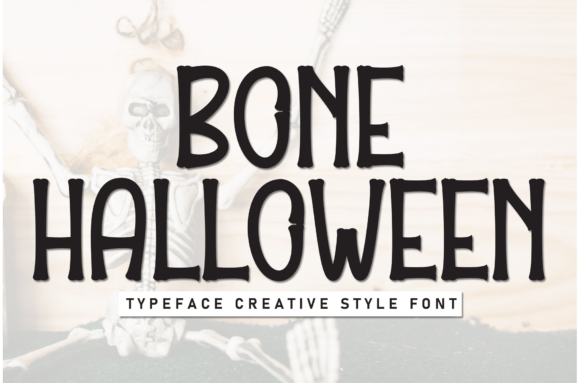
Bone Halloween: A Designer’s Practical Review
When evaluating a new display font for seasonal projects, the line between charmingly spooky and visually exhausting is incredibly thin. As designers, we have all scrolled through endless libraries of novelty typefaces that look fun in the thumbnail but fall apart when applied to actual brand identity work. My initial assessment of Bone Halloween was cautious, expecting another generic horror style. However, after testing it across multiple real-world mockups, it became clear that this typeface offers a specific structural integrity that separates it from standard holiday clip-art fonts. It possesses a tactile, illustrative quality that feels handcrafted rather than digitally generated, making it a viable candidate for professional design assets rather than just amateur crafts.
Visual Personality and First Impressions
The immediate mood Bone Halloween establishes is one of vintage macabre rather than modern slasher. The letterforms carry a weight and texture that suggests woodblock printing or hand-carved signage. For a designer, this is crucial because it provides built-in depth. When placed on a flat background, the font does not look like a sticker; it looks like an artifact. This inherent texture saves time in post-production because you do not need to overlay grunge effects to make it feel authentic. The personality is playful yet grounded, avoiding the jagged, aggressive sharpness that often plagues horror typography. Instead, it leans into a nostalgic aesthetic that pairs surprisingly well with modern typography trends favoring warmth and imperfection.
Performance in Branding and Packaging Design
In the context of packaging design, legibility at various scales is the primary stress test. I applied Bone Halloween to a mockup for a boutique candle label and a craft beer can. At three inches tall, the details sing. The bone-like structures of the characters create natural negative space that allows dark backgrounds to breathe through the letters. However, as a premium font choice for branding, it demands restraint. It works exceptionally well as a primary logotype for seasonal pop-up shops, haunted house attractions, or limited-edition product lines. It creates instant recognition and sets a definitive tone without needing additional illustration support.
For logo design, the font requires minor optical adjustments. Because the characters are illustrative, the default kerning can sometimes feel uneven when locked up tightly. I found that manually adjusting the spacing between specific letter pairs was necessary to maintain visual balance. This is standard procedure for any expressive creative font, but it is worth noting for designers on a tight deadline. Once adjusted, the wordmark holds its own against established competitors in the seasonal retail space.
Digital Applications and Social Media Graphics
Digital environments present different challenges, particularly regarding screen resolution and scrolling speed. When testing Bone Halloween for social media graphics and Instagram stories, the high contrast proved beneficial. The thick strokes remain crisp even on mobile devices, preventing the "fuzzy" edge effect common with thinner decorative fonts. For web design, specifically hero headers on landing pages, it performs best when used sparingly. A single headline in Bone Halloween anchored by a clean sans serif font body copy creates a sophisticated hierarchy. It signals to the user immediately that this is a themed experience while maintaining the readability required for conversion.
Content creators and bloggers will find this typeface valuable for thumbnail text and Pinterest pins. The distinct silhouette of the letters ensures they are readable at small sizes in crowded feeds. Unlike intricate script font styles that become illegible when scaled down for mobile previews, Bone Halloween retains its character shape integrity. This makes it a reliable tool for driving click-through rates on seasonal content where visual impact must happen in a fraction of a second.
Crafting, Printables, and Physical Products
For the maker community and digital sellers, technical versatility is just as important as aesthetics. I tested Bone Halloween specifically for Cricut and laser cutting workflows. The internal counters (the holes in letters like 'o', 'a', and 'b') are sufficiently open to prevent tearing during vinyl weeding. This is a frequent failure point in novelty fonts, but Bone Halloween appears designed with physical fabrication in mind. For printable design products like party invitations or greeting cards, the font prints cleanly on both matte and glossy cardstock without ink bleed obscuring the finer bone details.
Merchandise designers should note that this font translates beautifully to embroidery and screen printing. The solid fills provide excellent coverage, and the lack of hairline serifs reduces the risk of thread breaks or screen clogging. Whether producing t-shirts for a fall festival or custom tote bags, the typeface maintains its structural boldness across different substrates. This durability makes it a high-value addition to a commercial font library for businesses that sell physical goods.
Strategic Font Pairing and Hierarchy
A display typeface is only as good as the company it keeps. Bone Halloween has a strong voice, so it needs supporting actors that do not compete for attention. During my review, I tested several font pairing strategies to determine what maintains professional polish:
- With Sans Serif: Pairing with a geometric sans like Montserrat or Futura creates a contemporary, editorial look. The cleanliness of the sans offsets the organic roughness of the display font.
- With Serif: Combining Bone Halloween with a traditional serif font like Garamond evokes a classic storybook or Victorian apothecary vibe. This is ideal for editorial design and luxury packaging.
- With Handwritten: Use caution here. Pairing with a handwritten font can easily look messy. If necessary, choose a very neat, monoline script for secondary accents only, never for primary information.
Bone Halloween succeeds because it treats seasonal design with typographic respect. It avoids the trap of being a one-use gimmick by offering enough structural quality to serve in professional marketing visuals and premium merchandise. It is not a universal solution, nor should it be. It is a specialized tool for creating atmosphere, nostalgia, and thematic cohesion. For designers willing to invest the time in proper spacing and thoughtful pairing, it delivers a distinctive visual signature that elevates seasonal work above the generic noise. It earns its place in a curated font library not just as a Halloween asset, but as a versatile textured display option for any project requiring a touch of organic darkness.